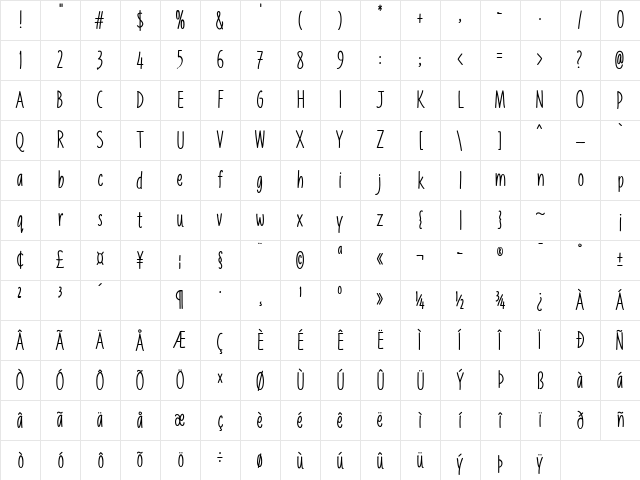
Complete Liniga Regular glyph index. Displaying only characters natively supported by Liniga Regular font.
Liniga is a composed and adaptable typeface that performs quietly and consistently across a wide range of design contexts.